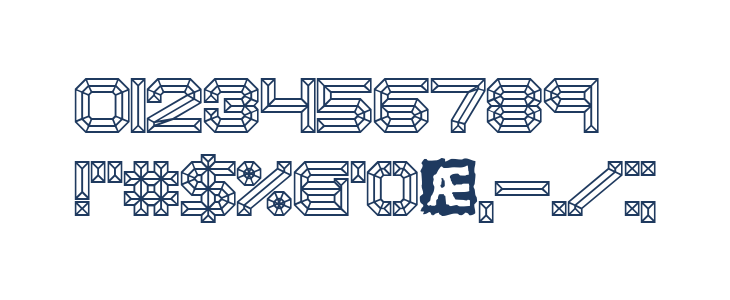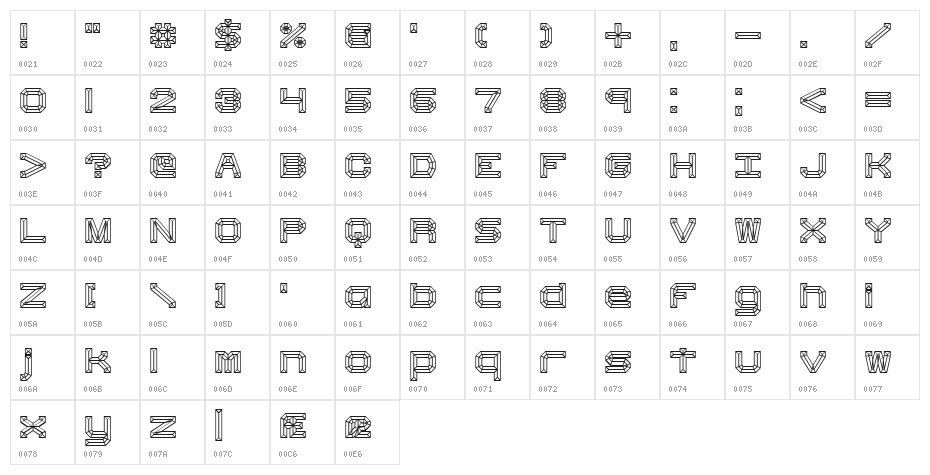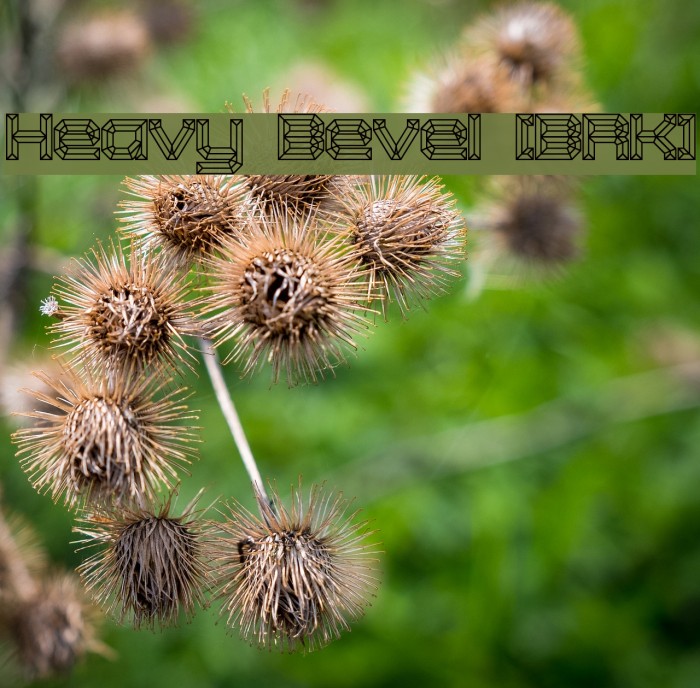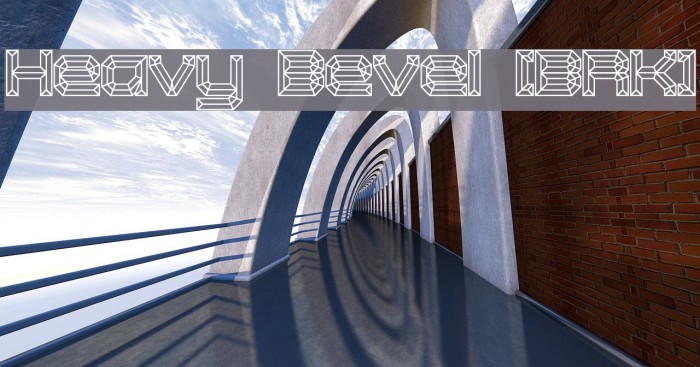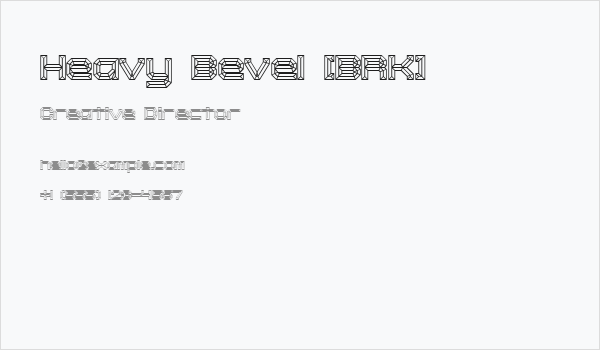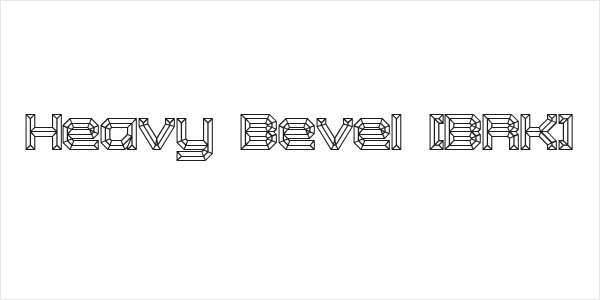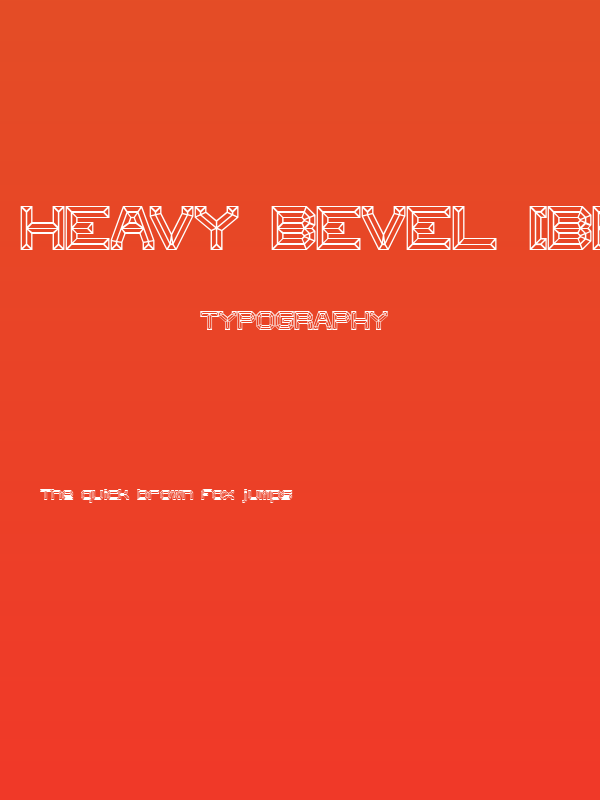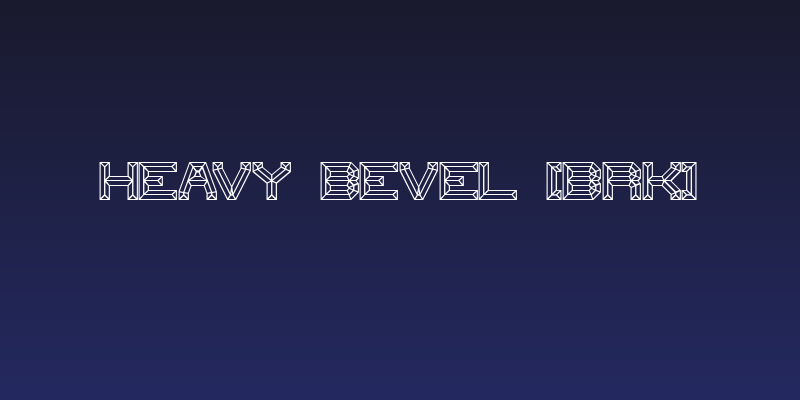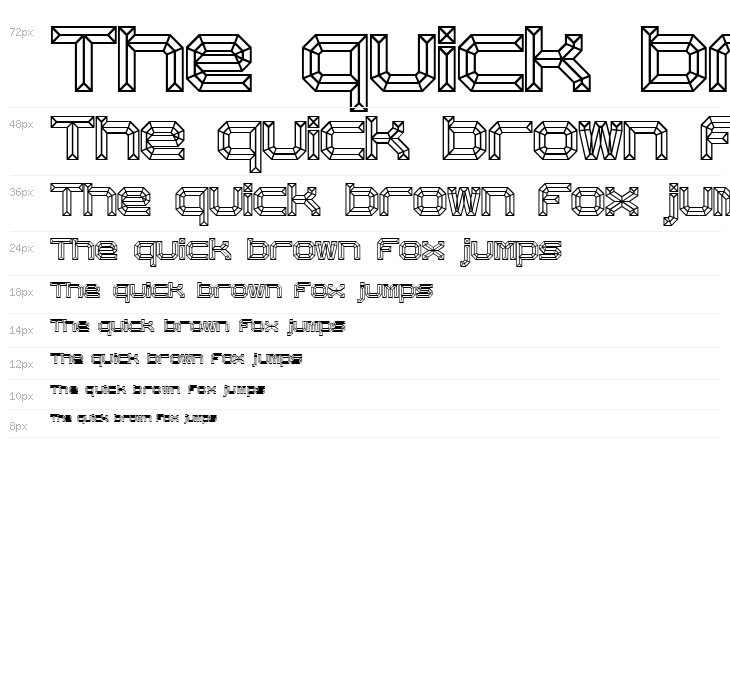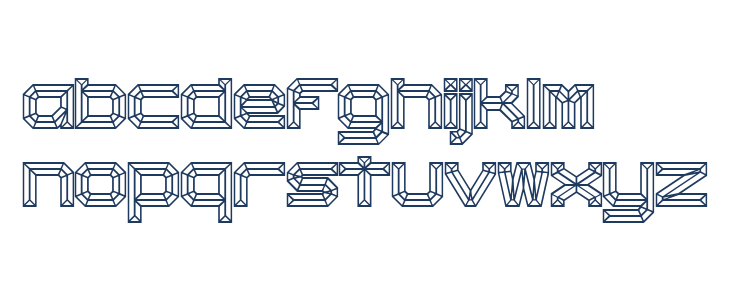
Heavy Bevel [BRK] Font
Heavy Bevel [BRK] Description
This font features a bold, geometric design with a distinct three-dimensional effect. Each character is constructed with angular lines and beveled edges, creating a sense of depth and structure. The uppercase and lowercase letters maintain a consistent style, with intricate patterns that give the font a unique and decorative appearance. The numbers and special characters follow the same design principles, ensuring uniformity across all elements. The font's complex structure makes it stand out, ideal for projects that require a strong visual impact.
| Proposed Projects | Ideal for posters, logos, video game graphics, and any project requiring a striking, decorative typeface. |